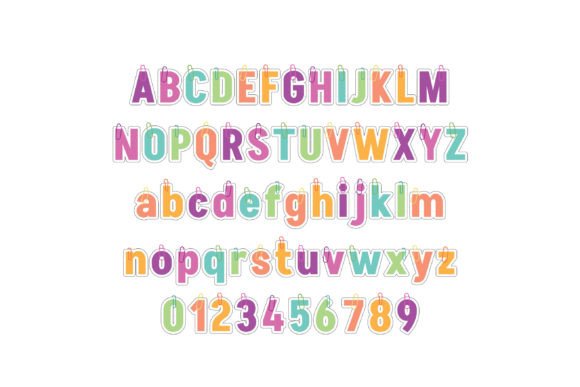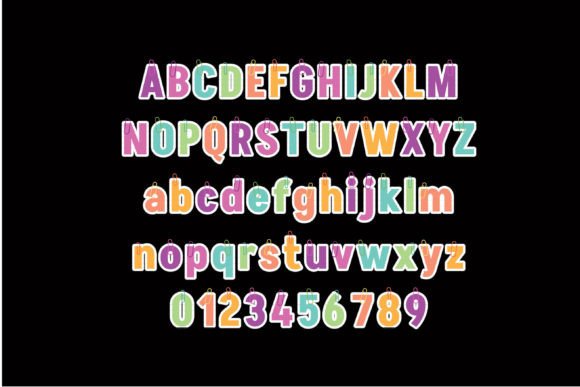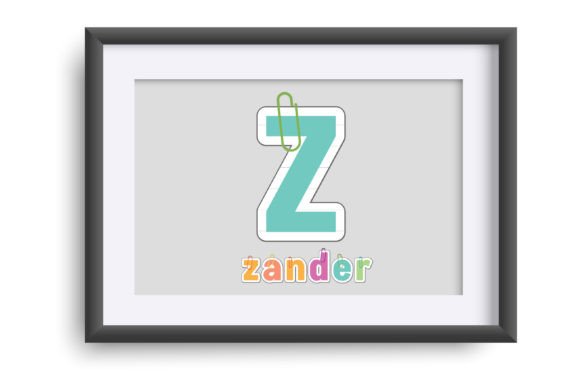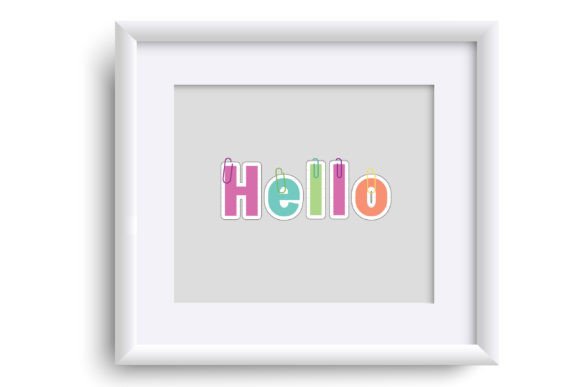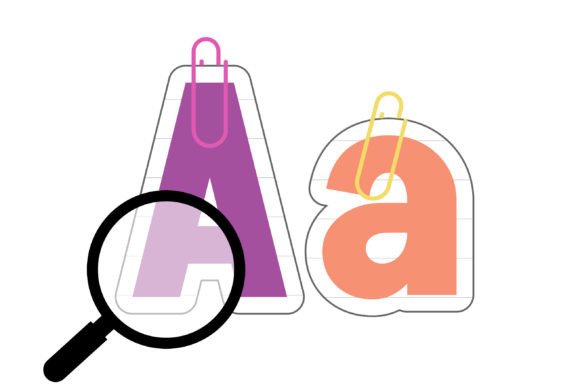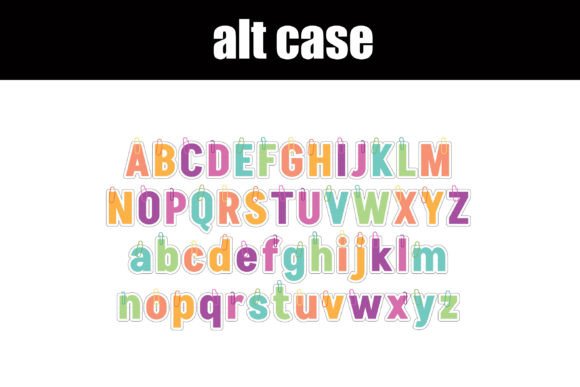
Introduction to Paperclipped Font
This full-color font features a sans serif font on a paper layer with equally coloful paperclips throughout.
There is an alt version of each letter in a different color that you can access through your system character map OpenType full-color (SVG) fonts are installed like any normal .